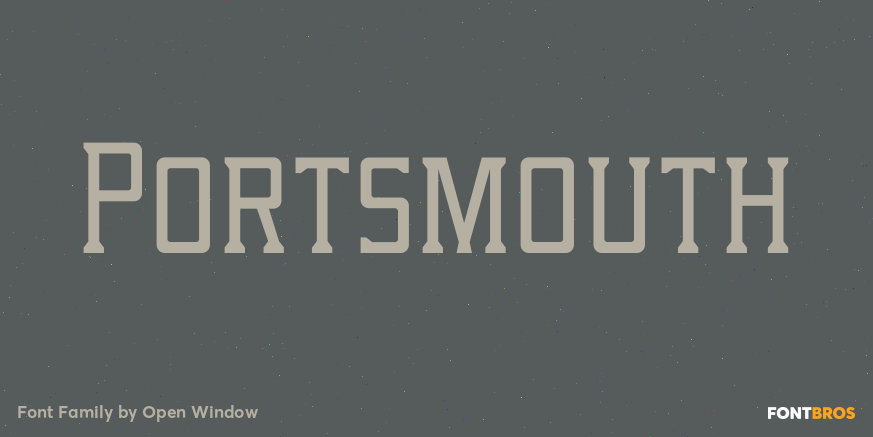
Portsmouth Font
About Portsmouth
Portsmouth is a strong, sturdy typeface with historical character. Its inspiration comes from the height and strength of the wooden tall ships that sailed into port in their day. With caps and small caps, this typeface is great for headlines or subheads…